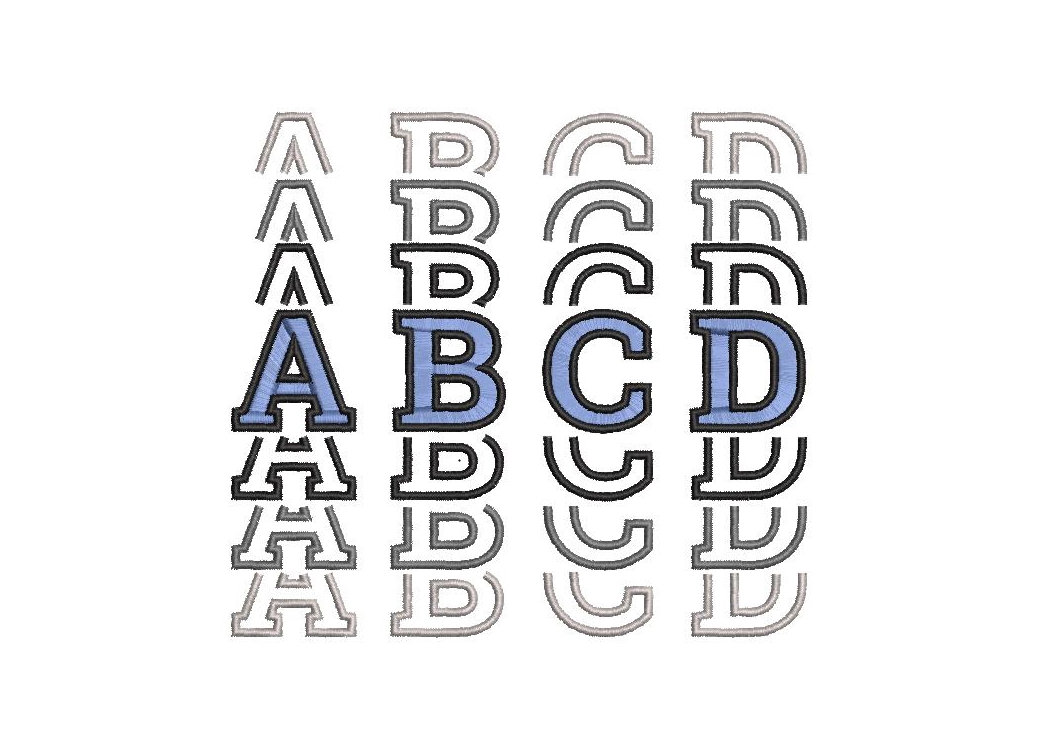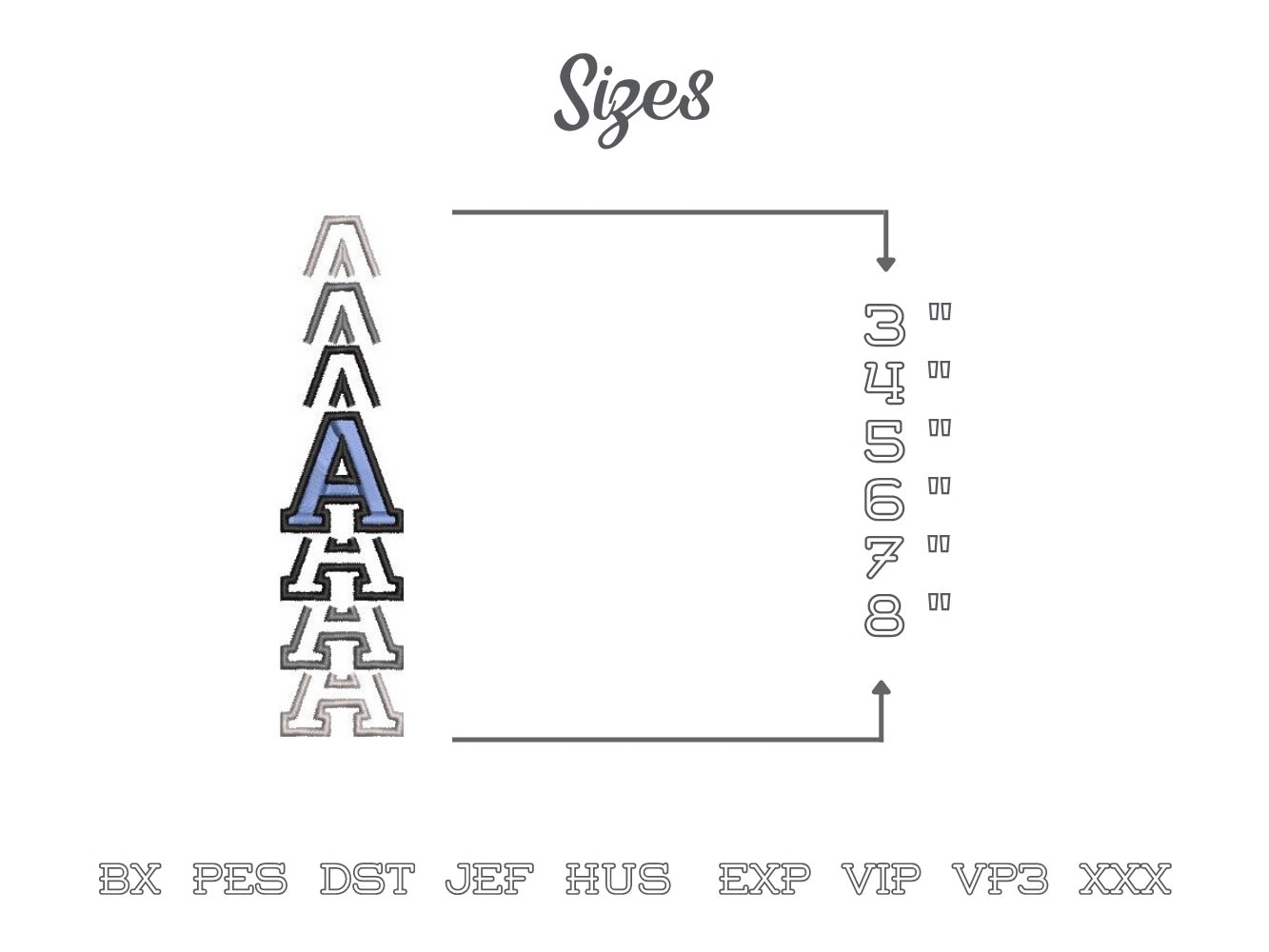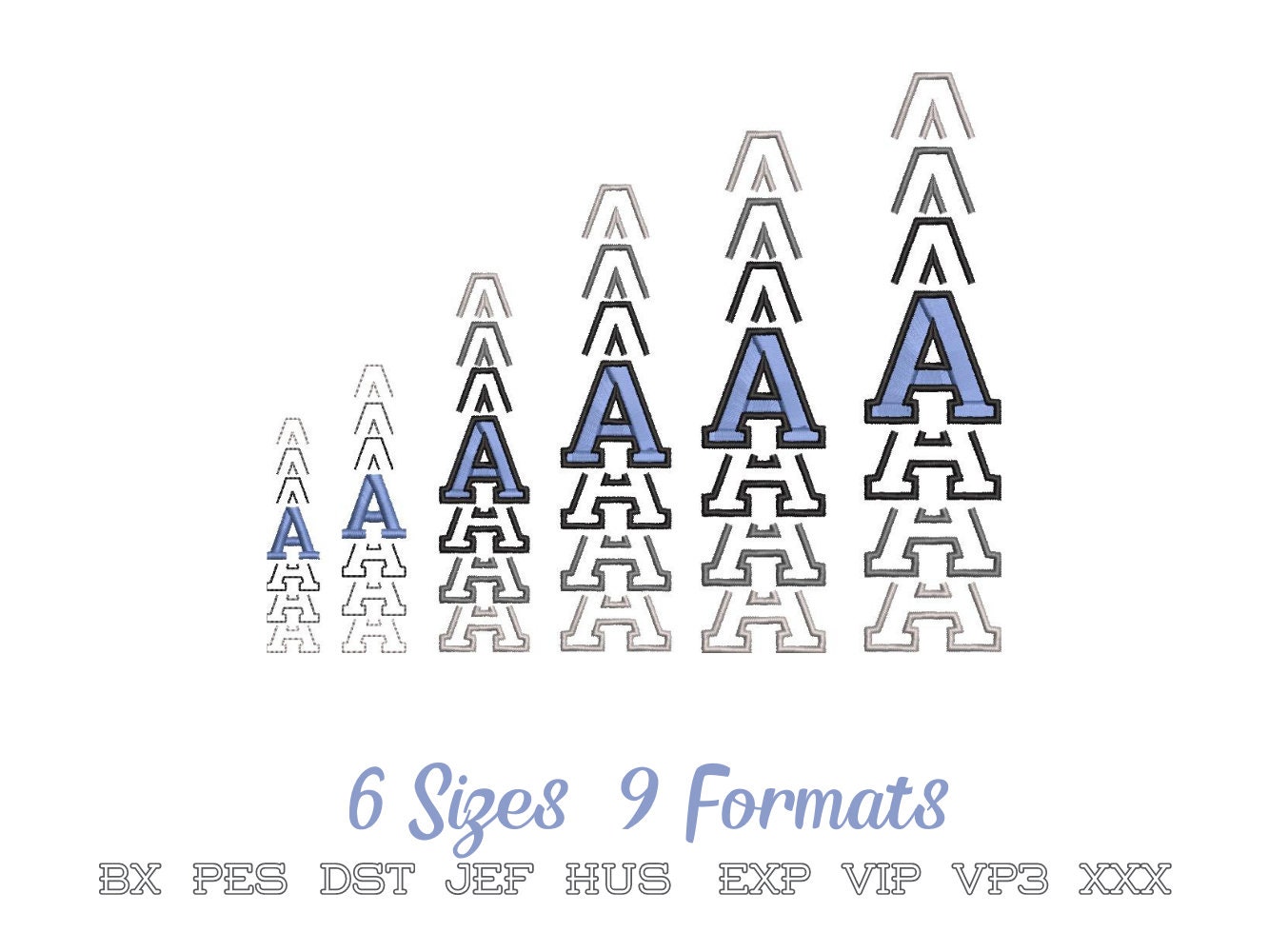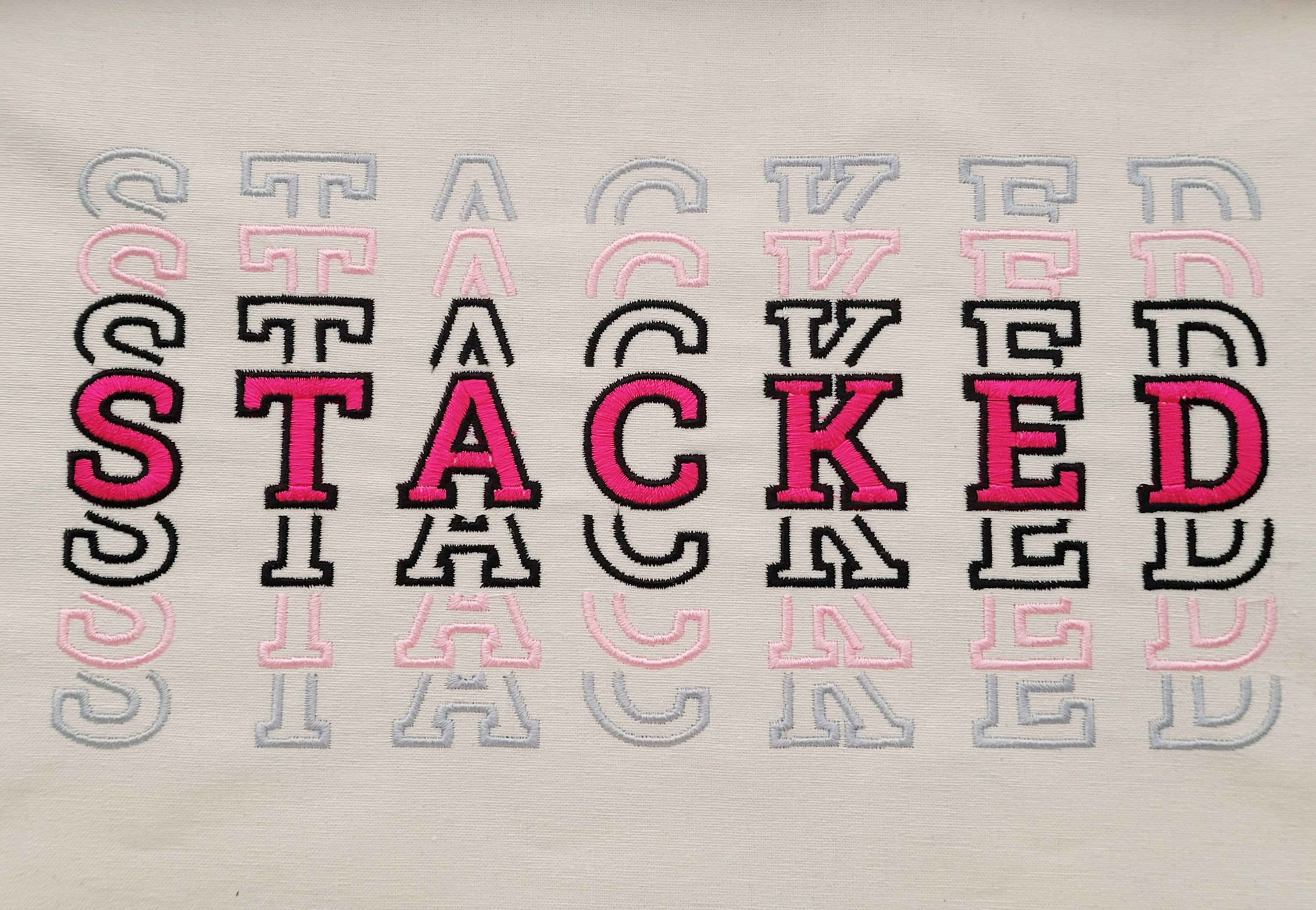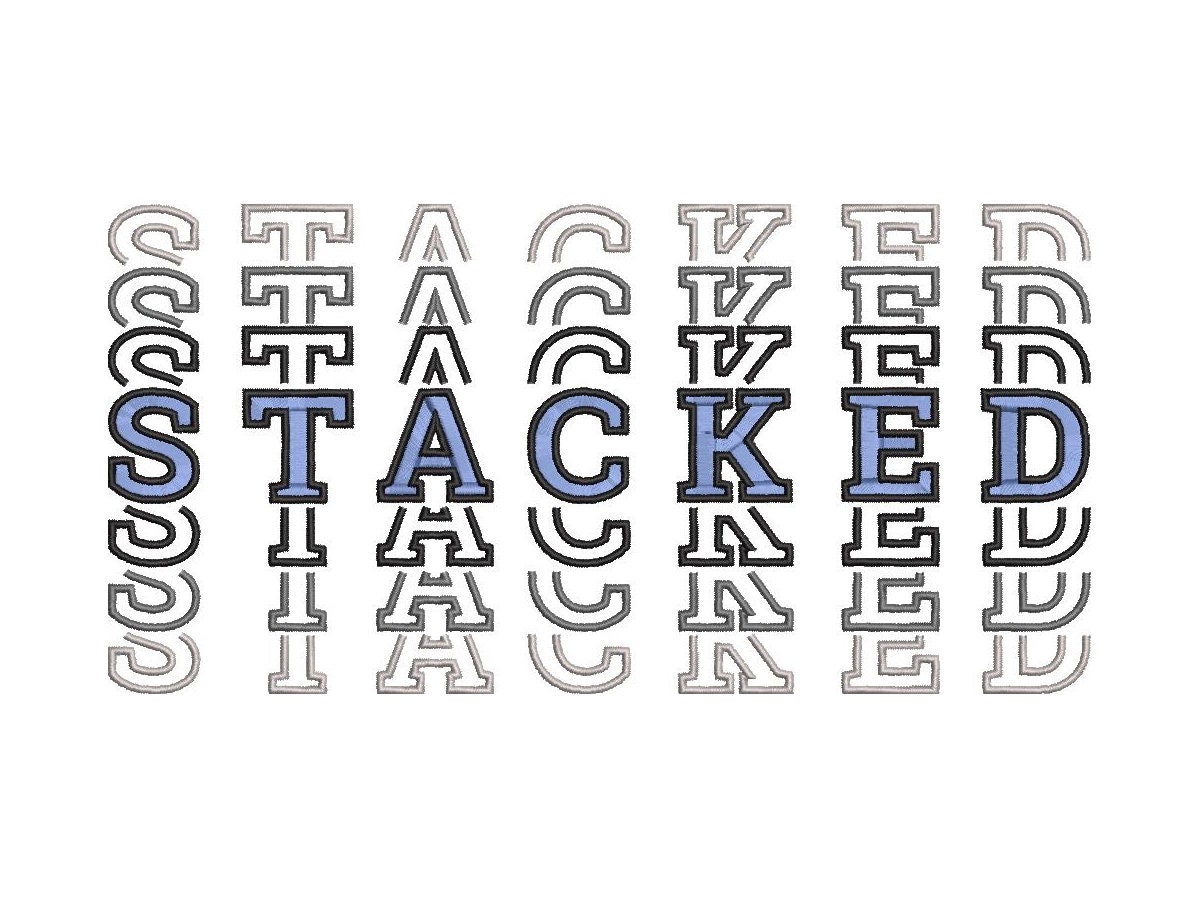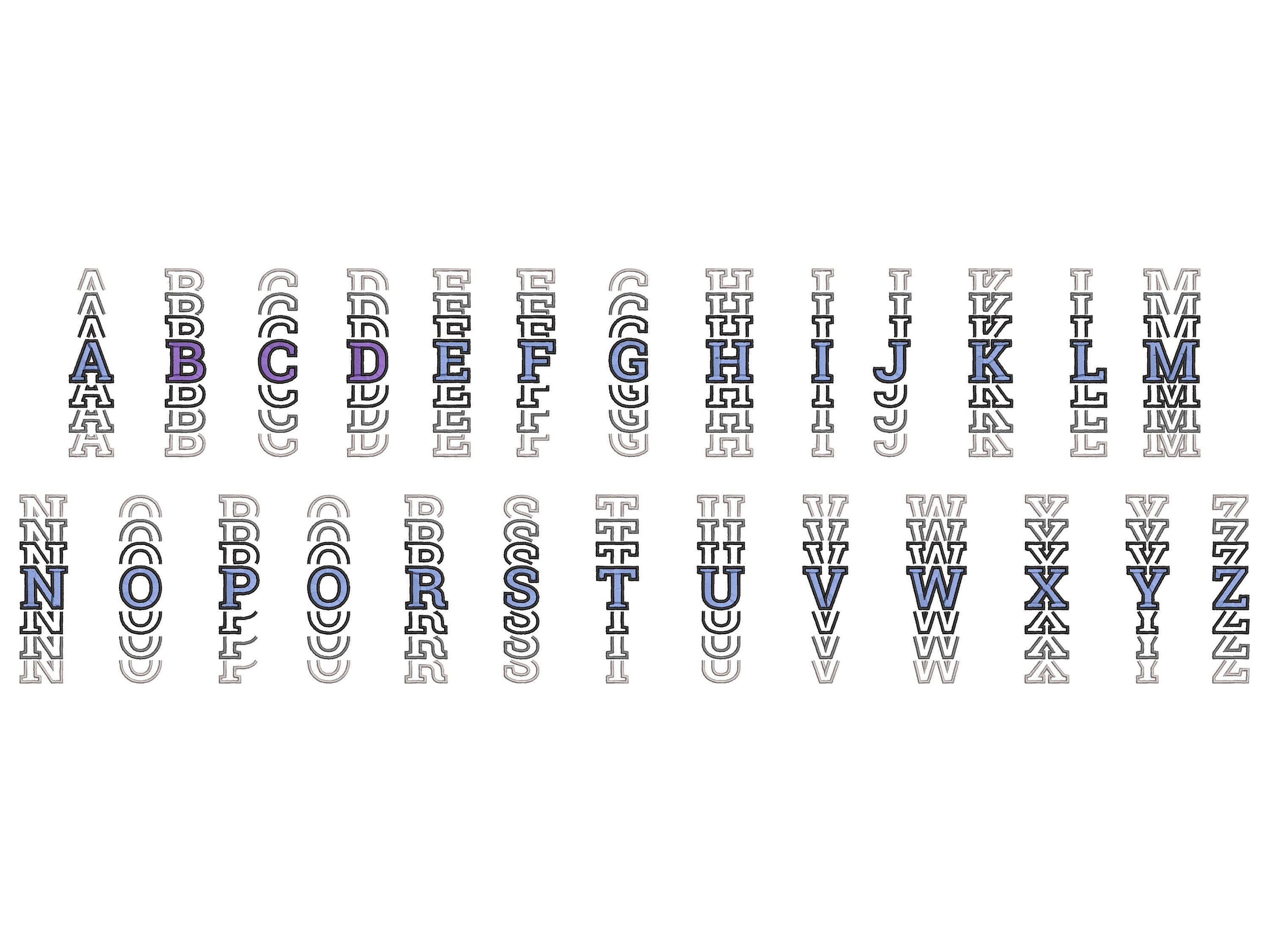
Stacked Font, BX included! Satin stitch and outline alphabet letters, kids boy trend Font awesome machine embroidery designs assorted sizes
The whole alphabet A-Z uppercase
Please note: due to the nature of the font, small sizes 3" and 4" have the satin stitch letters in the middle. The middle letter doesn't have an outline. Please view the images.